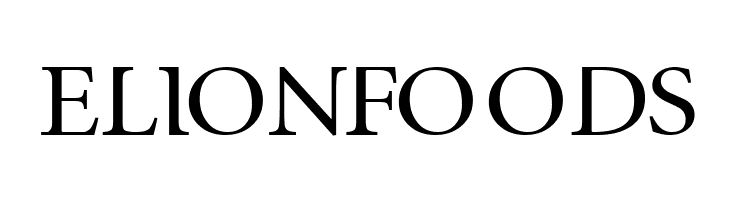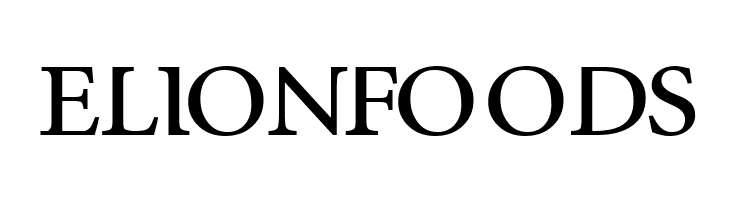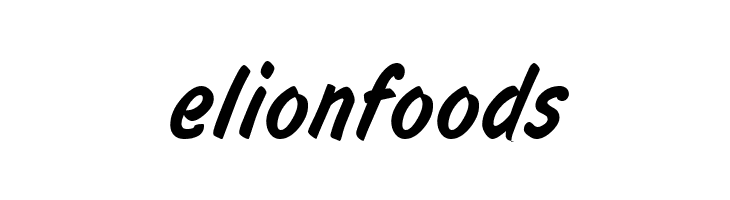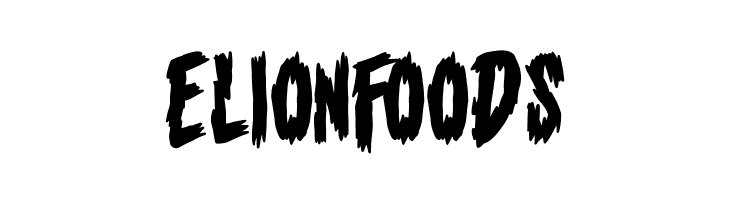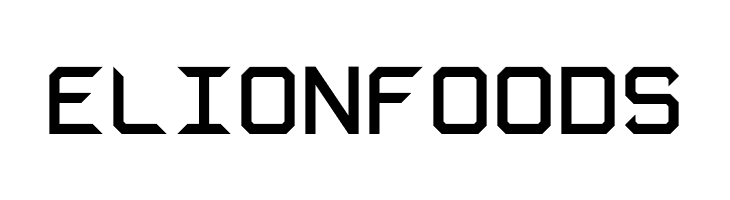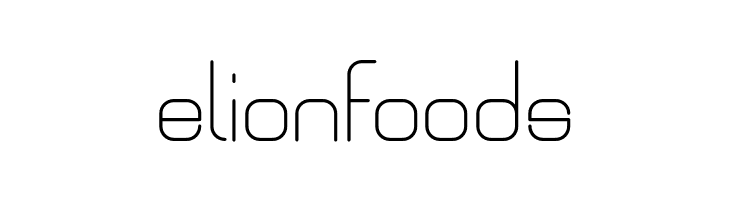
A classic serif font with elegant, sharp serifs and medium contrast.
A bold, high-contrast serif font with angular serifs and a modern flair.
A bold serif font with strong strokes and sharp serifs, offering a classic yet modern look.
A bold, high-contrast serif font with sharp serifs and a modern classic style.
A bold, jagged font with an aggressive, dynamic style.
A modern, geometric font with clean lines and a minimalist design.
A futuristic, geometric font with angular, segmented letterforms.
A futuristic, geometric font with sharp angles and a bold design.
An artistic and decorative font with elaborate, angular designs.